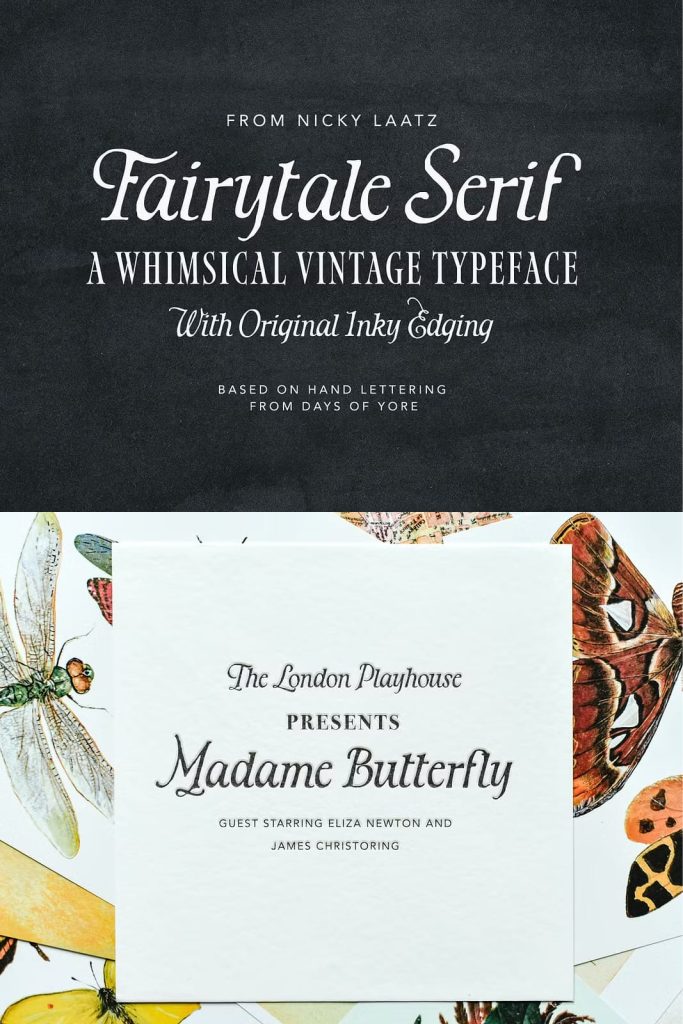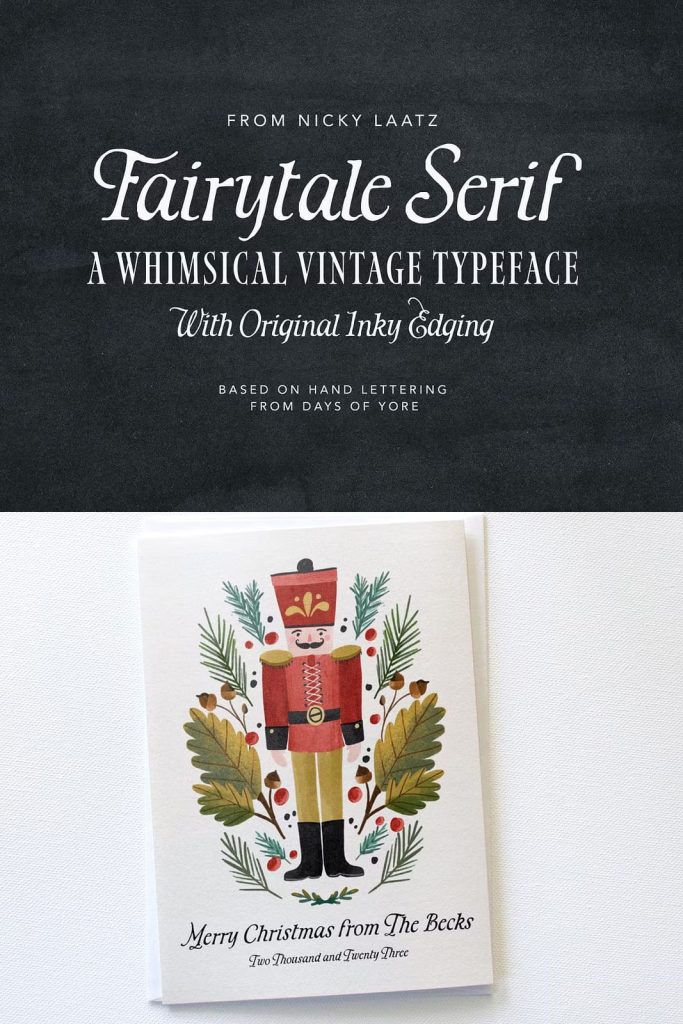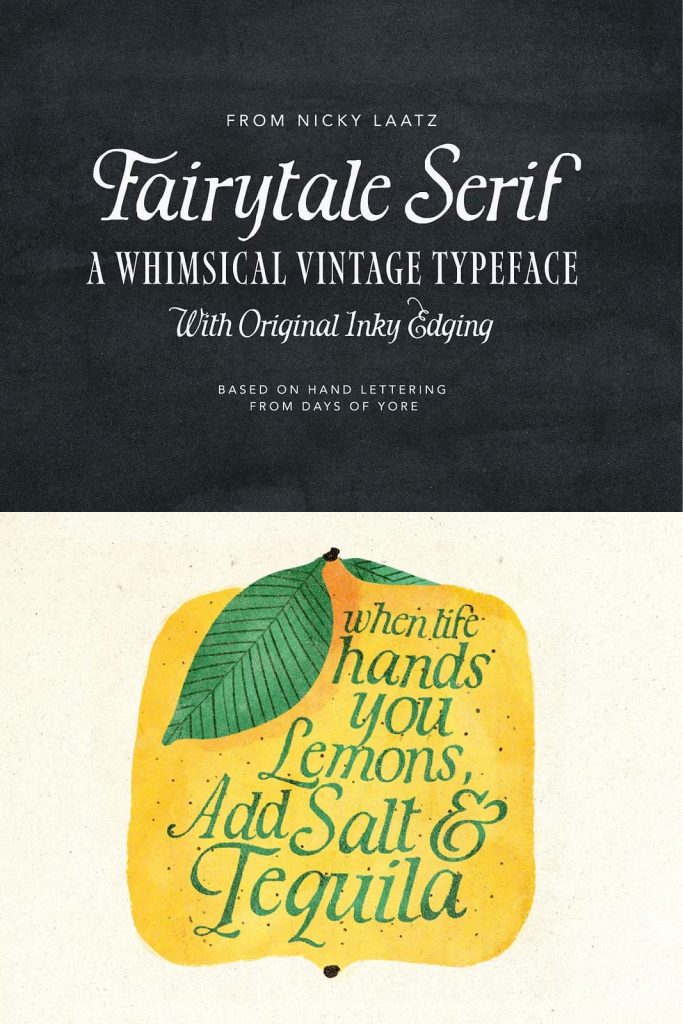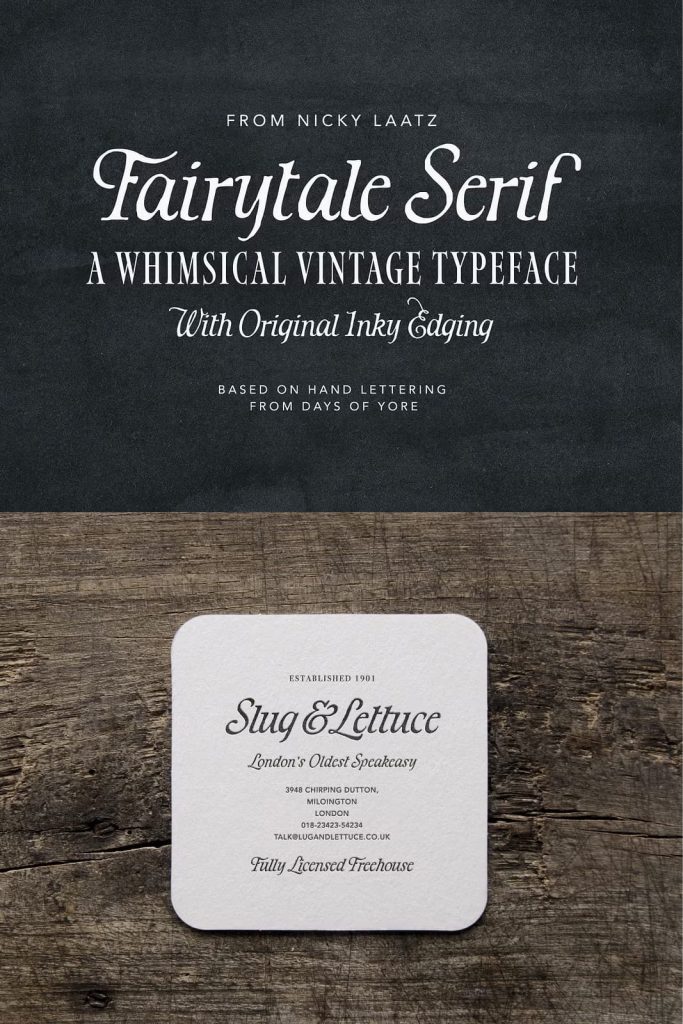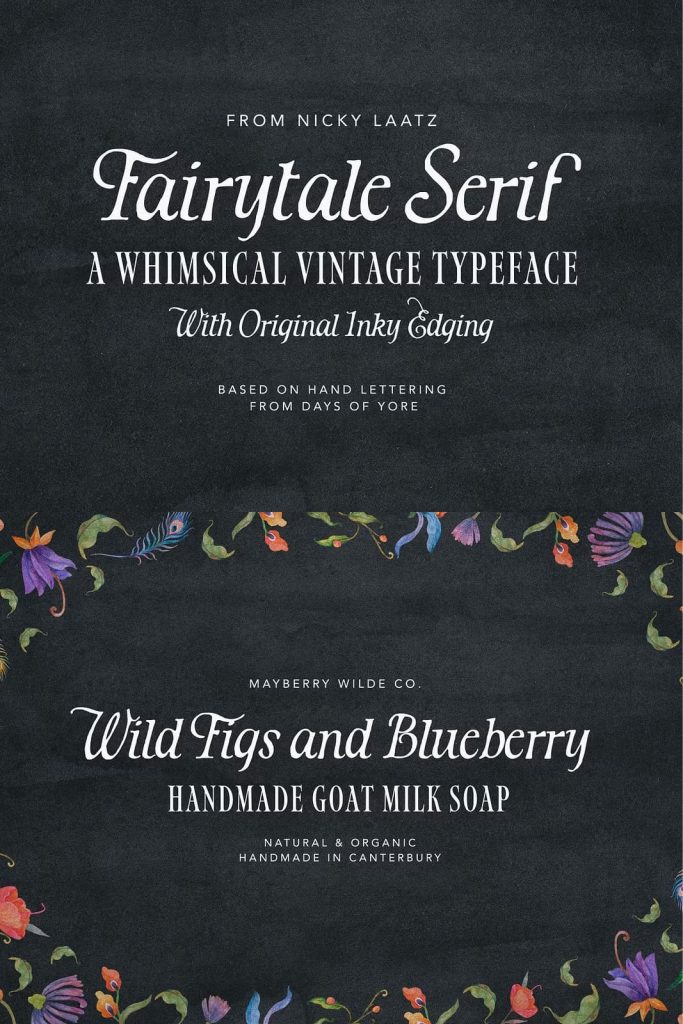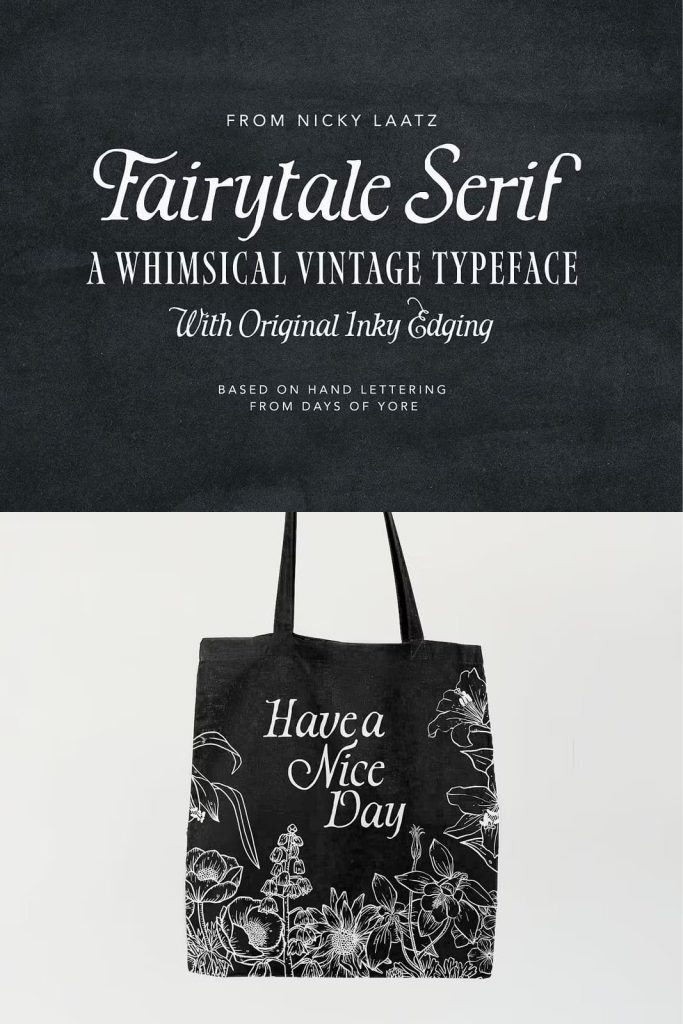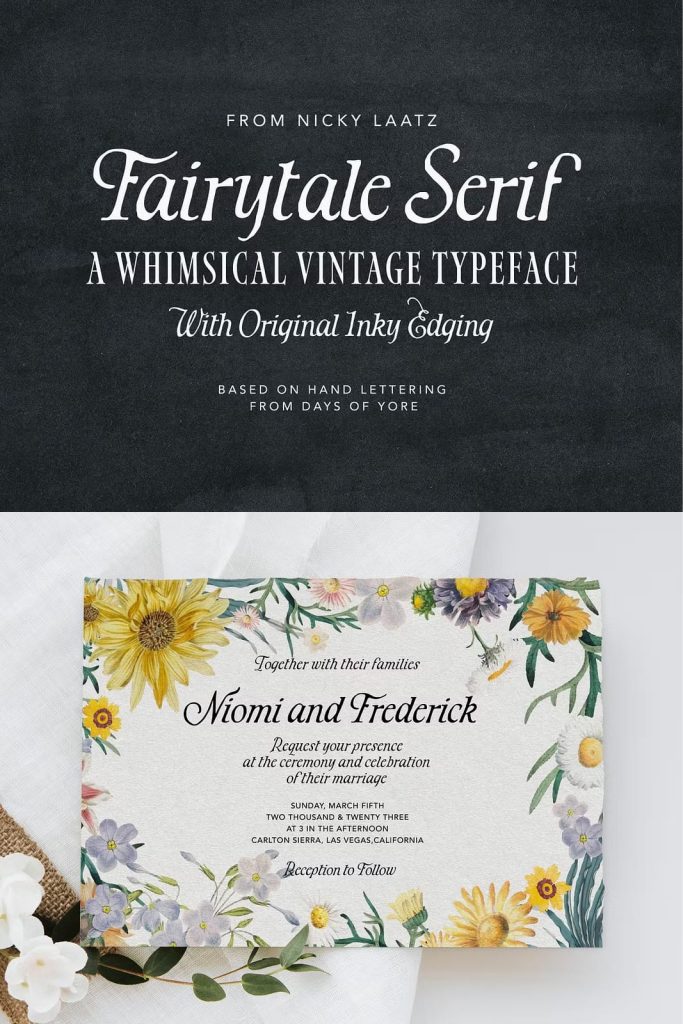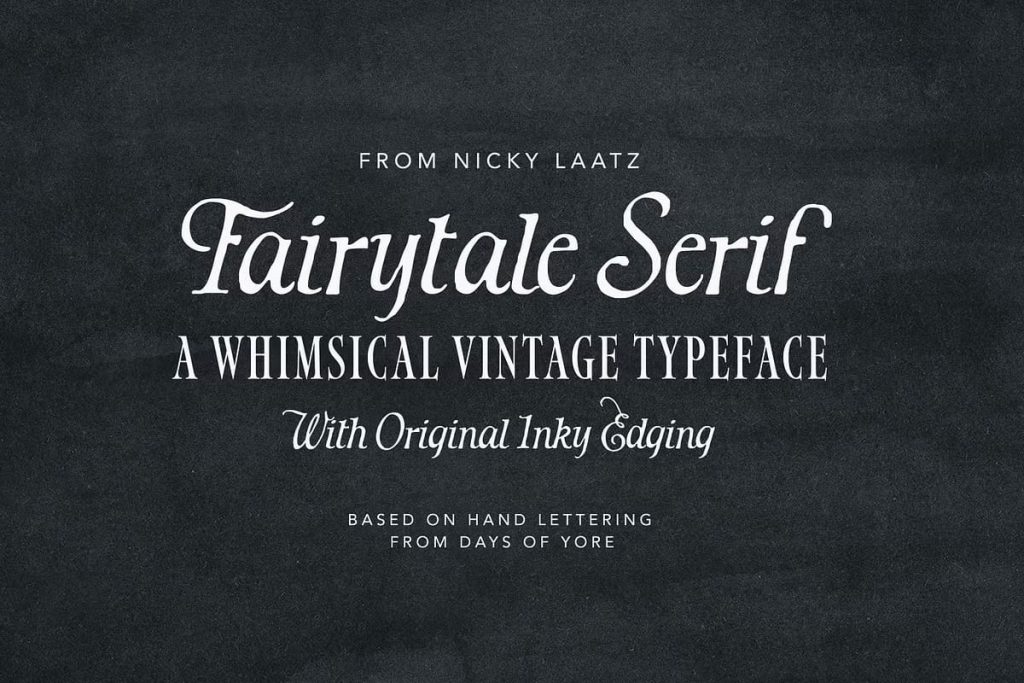
Fairytale Serif
Fairytale Serif Font: A Whimsical Vintage-Inspired Serif for Storytelling Designs
Fairytale Serif is a whimsical, imaginative serif font crafted to transport you back to an era of hand-scribed lettering, ink-stained pages, and timeless stories. Inspired by vintage italic scripts traditionally drawn by hand, this typeface carries a warm, nostalgic essence that invites readers into a world filled with charm, artistry, and delightful detail. Fairytale Serif captures the character of handwritten italics while delivering the structure and elegance of a classic serif, making it a perfect blend of old-world craftsmanship and modern design versatility.
A Serif Font Rooted in Nostalgia and Handcrafted Beauty
Fairytale Serif stands out for its delicate inky edges and subtly uneven letterforms, each evoking the touch of a skilled scribe. Instead of rigid or overly refined strokes, the font embraces organic imperfections that mirror traditional handwriting tools. The gentle curves, expressive angles, and textured finishing give every letter a unique personality, allowing the font to breathe life and emotion into the words it shapes.
While many serif fonts aim for precision, Fairytale Serif focuses on warmth and artistic expression. Its hand-scribed influence brings historical character into contemporary design, providing a rare blend of authenticity and readability. This nostalgic style makes it especially appealing for creators seeking a typeface that looks handcrafted yet still refined and polished.
Charm Your Audience with Storybook Elegance
Fairytale Serif radiates storybook charm. Its enchanting letterforms make it ideal for designs that want to evoke wonder, imagination, and emotion. Whether you’re creating book covers, children’s story pages, branding concepts, product packaging, or decorative prints, the font instantly adds an air of magic and elegance.
Its whimsical visual rhythm encourages readers to feel engaged, inspired, and curious. The inky edges help text appear more inviting, while the vintage italic influence adds theatrical flair and expressive movement. Designers aiming to build an atmosphere around their message will find Fairytale Serif incredibly effective in shaping mood and tone.
A Versatile Typeface for Creative and Professional Use
While Fairytale Serif thrives in whimsical and narrative-driven projects, it remains versatile enough for more formal or professional compositions. Its balanced structure and smooth readability allow it to shine in headlines, subheadings, logos, and editorial layouts. The vintage aesthetic doesn’t overpower the clarity of the letters, giving you freedom to use it in branding, packaging, invitations, and themed advertising.
This typeface performs beautifully in digital and print formats alike. Use it in website headers to create a welcoming and artistic identity, or incorporate it into printed event materials for added elegance. Because the font reflects a handmade quality, it naturally adds character without relying heavily on additional effects or embellishments.
Perfect for Books, Invitations, Posters, and Artistic Designs
Fairytale Serif is an excellent choice for book titles, chapter headings, and literary designs. Its magical, nostalgic style harmonizes with themes of fantasy, folklore, history, and storytelling. Designers crafting invitations—whether for weddings, celebrations, or themed events—can use this font to establish a sense of sophistication and charm.
The font also enhances posters, art prints, stationery, journaling pages, and decorative signage. Its handcrafted look adds personality to every piece. The letters appear expressive and gentle, making them ideal for projects that require emotional appeal, artistic flair, or vintage inspiration.
Embrace the Magic of Fairytale Serif in Your Creative Journey
Fairytale Serif is more than a decorative serif font; it is a doorway into nostalgia, craftsmanship, and artistic storytelling. Its vintage hand-scribed italic roots, enchanting inky details, and unique personality allow you to create designs that captivate and inspire. Whether you seek to craft whimsical branding, enhance narrative-driven artwork, or infuse your typography with warmth and history, this font provides elegance, character, and expressive movement.
Let Fairytale Serif guide your creative projects with its timeless charm. Its blend of handwritten beauty and classic serif structure invites designers to explore typography as an art form—one that transports audiences into a world of imagination and visual storytelling.